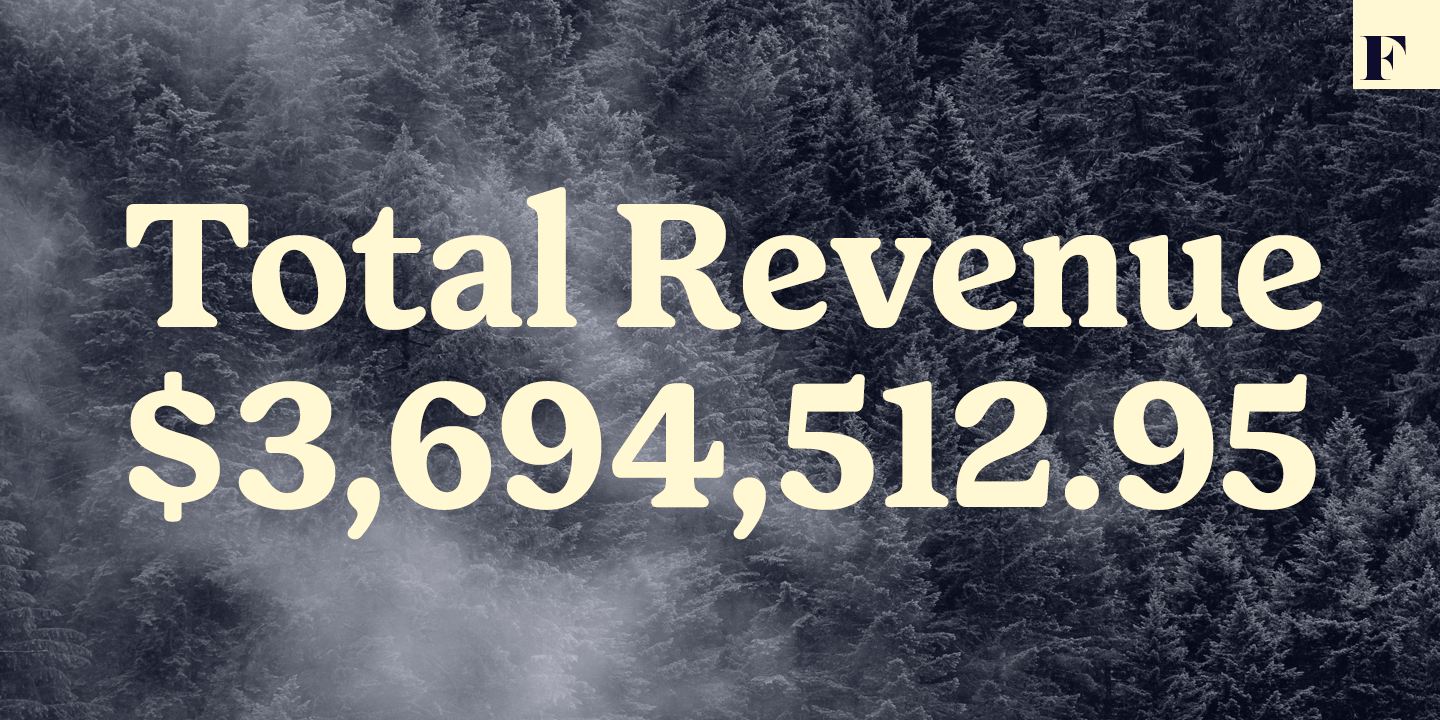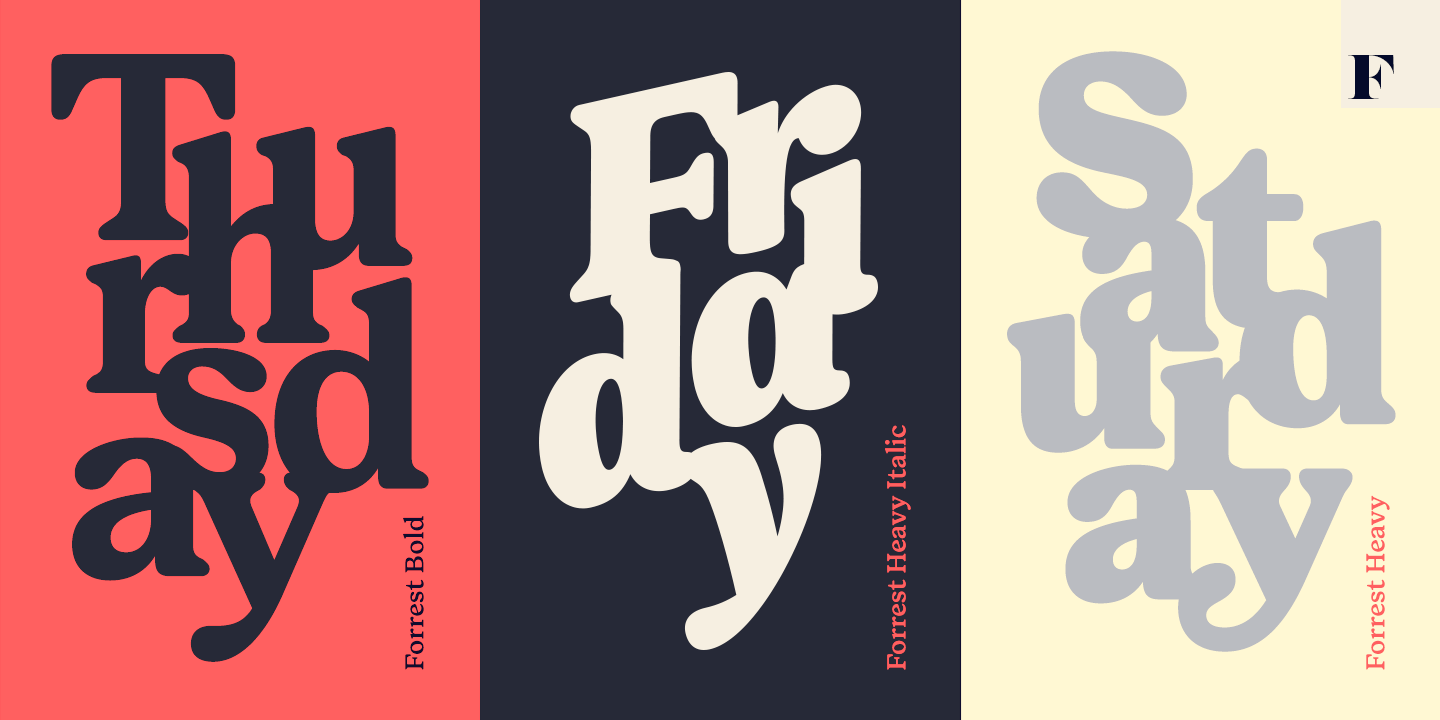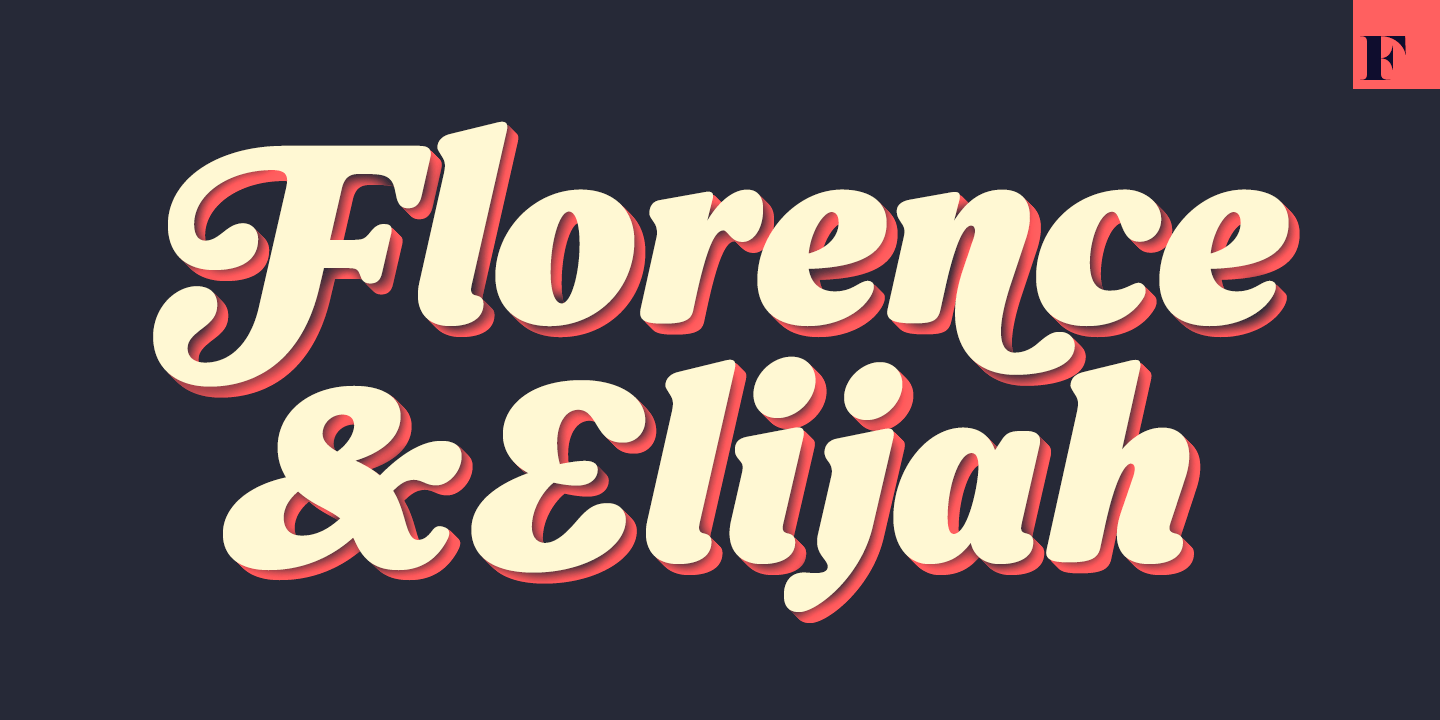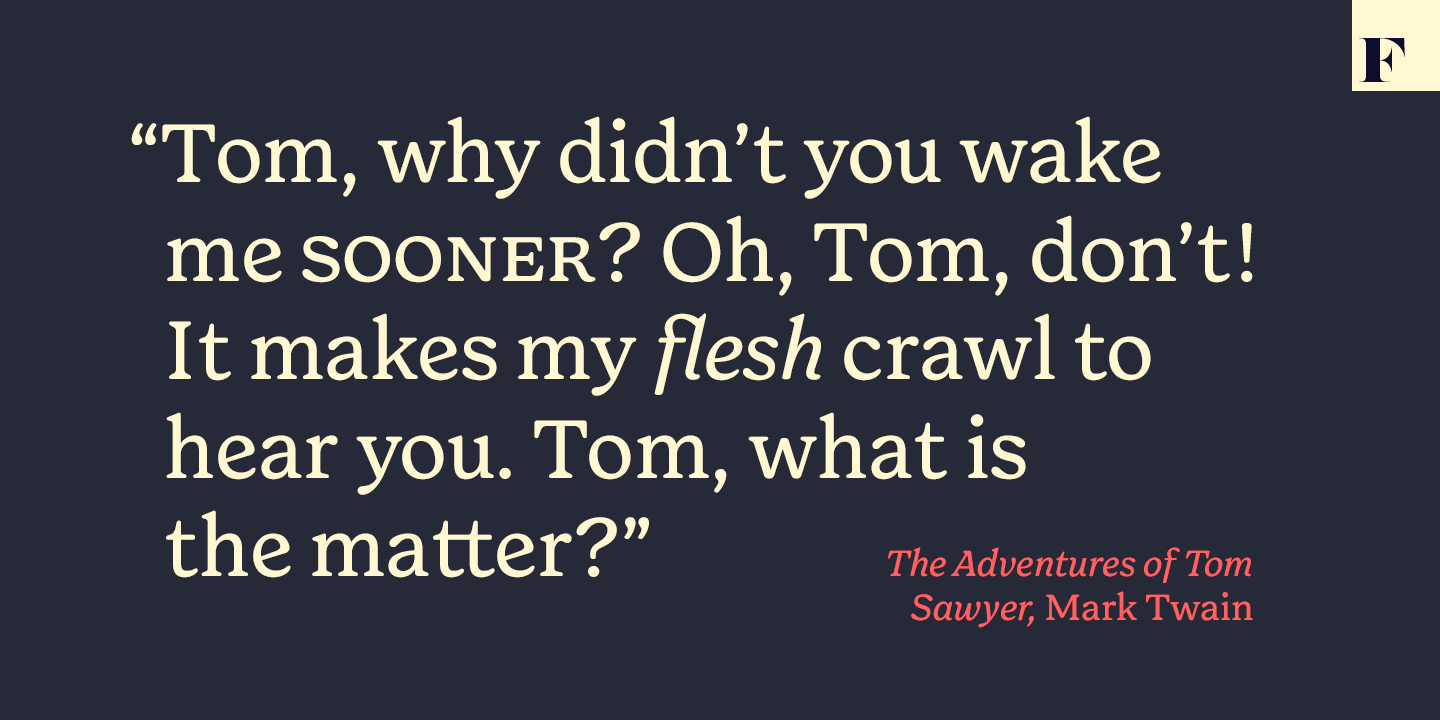
About Forrest
Typographers ? and clients alike ? are often obsessed with novelty. Be it self-consciously peculiar details with made-you-look appeal ? or just austere, detached minimalism, constant seek for novelty in typography often becomes an end in itself. A lot…